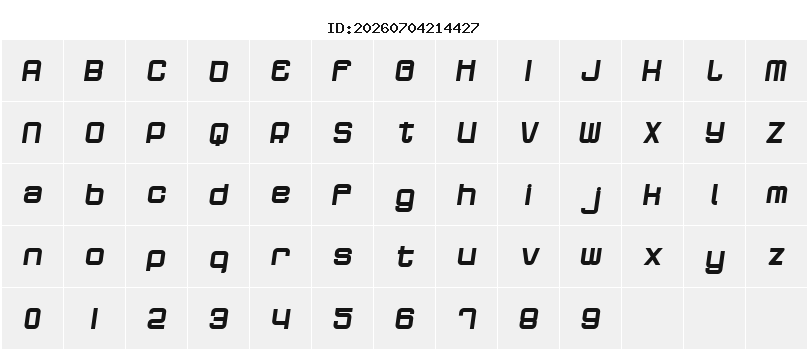
Dopenakedfoul Phat Relaxed Preview
• Font Name: Dopenakedfoul Phat Relaxed
• Full Font Name: Dopenakedfoul Phat Relaxed
About Dopenakedfoul Phat Relaxed.ttf
Dopenakedfoul Phat Relaxed.ttf is a modern, elegant sans-serif font designed for ultimate readability and visual harmony. Perfect for branding, headlines, web design, and print materials.